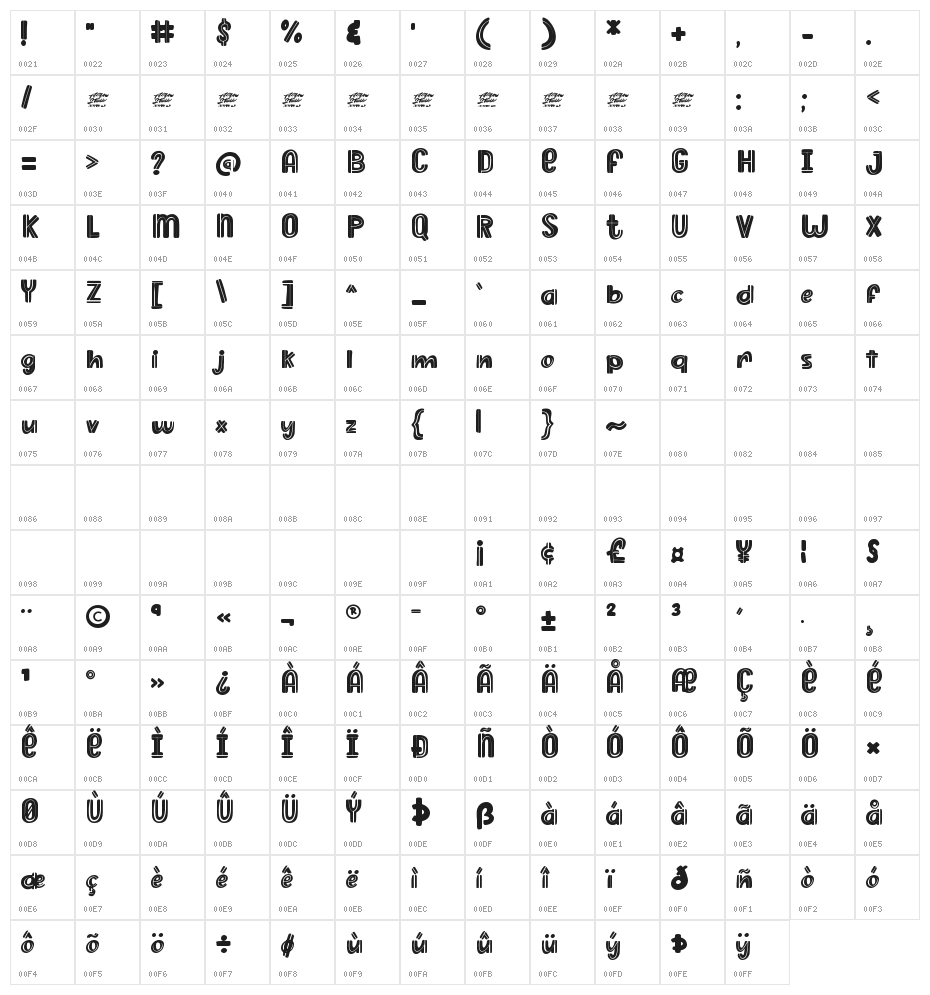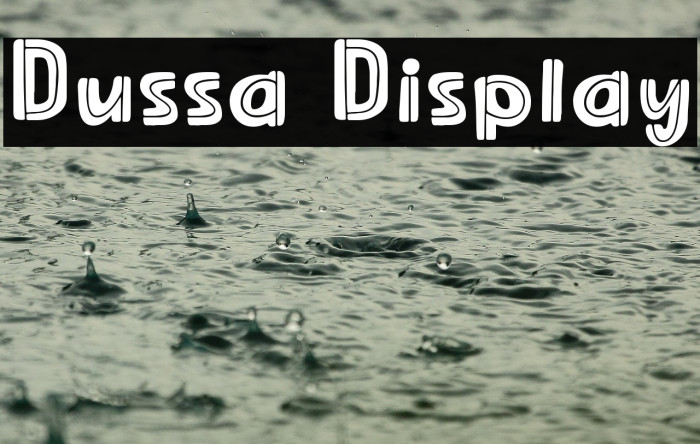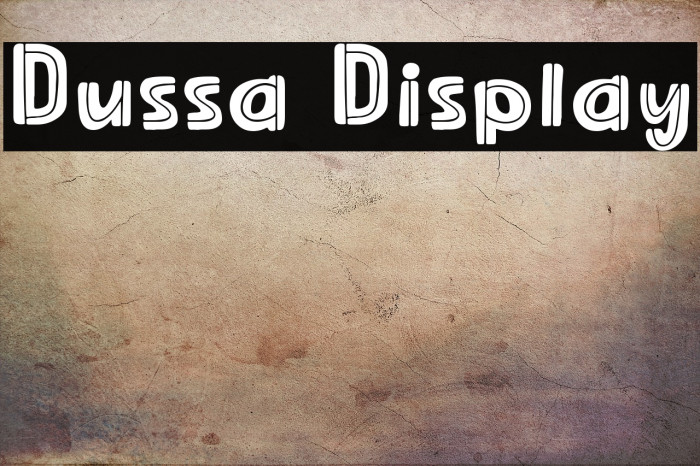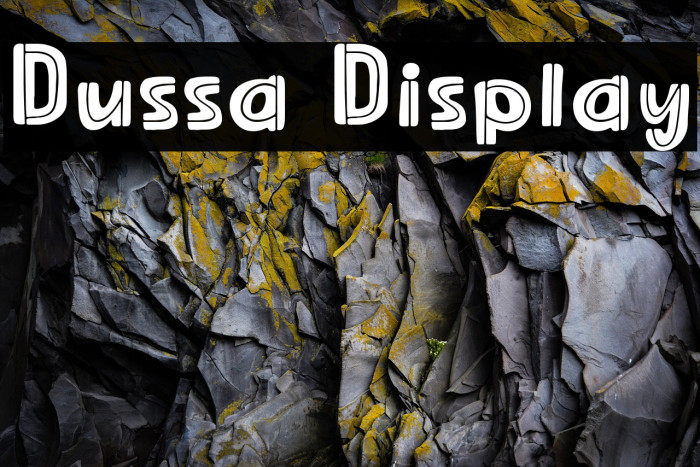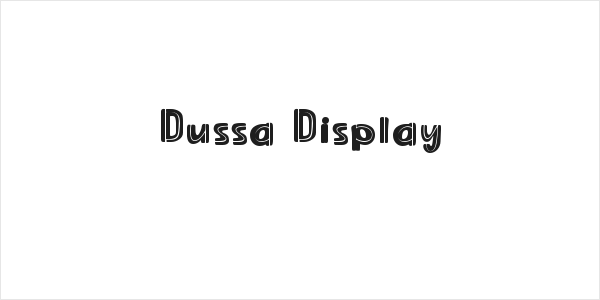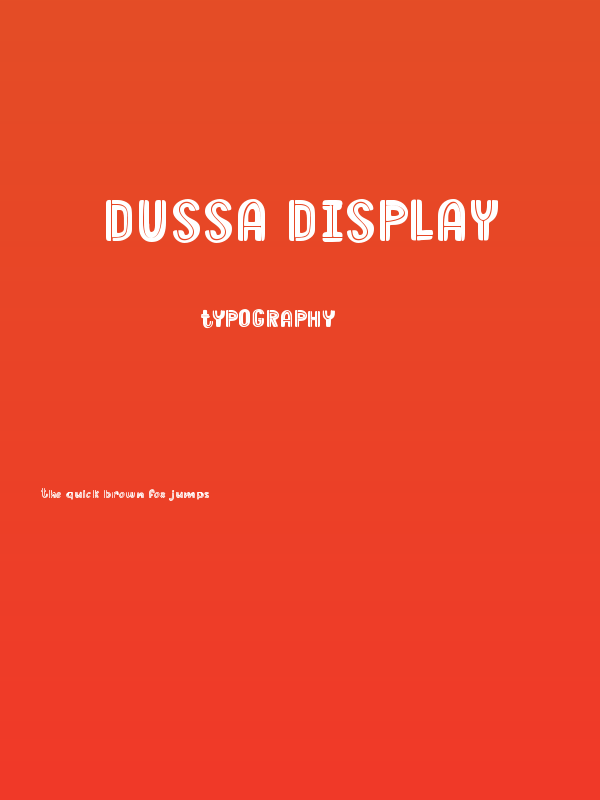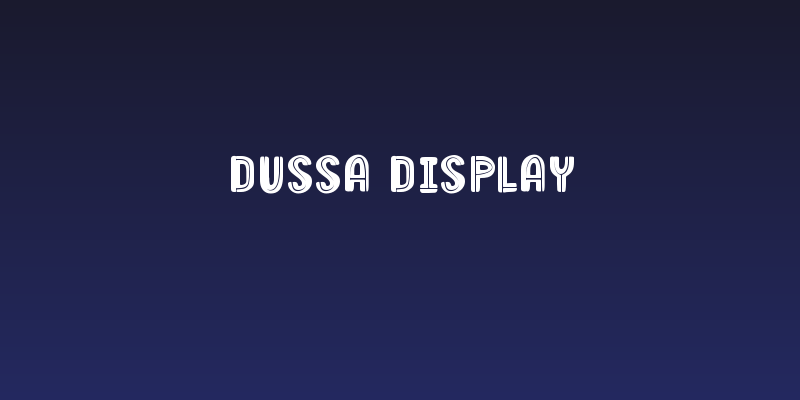
Dussa Display Font
Dussa Display Description
This font features a bold and playful design with thick, rounded strokes that create a sense of fun and energy. The letters have a consistent width, giving the font a uniform appearance. The uppercase and lowercase characters maintain a cohesive style, with slight variations in curvature and stroke endings that add a touch of uniqueness. The numerals and special characters are designed to match the overall playful aesthetic, making them suitable for creative projects. The font's boldness and rounded edges make it highly legible, even at smaller sizes, while the unique style ensures it stands out in any design.
| Overall Style | Playful, Modern |
| Proposed Projects | Ideal for children's books, playful branding, posters, and creative digital content. |